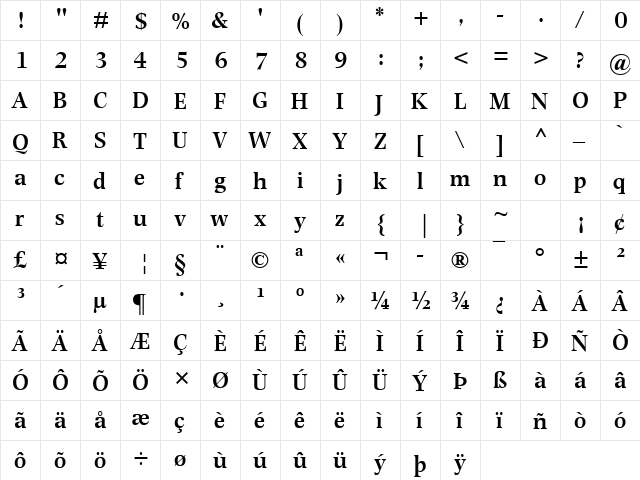
Photina MT Semi Bold Regular Font Preview
Photina MT Semi Bold Regular
Photina MT Semi Bold Regular Font Details
Design Context for Photina MT Semi Bold Typeface
Photina MT Semi Bold is a composed and adaptable typeface that performs quietly and consistently across a wide range of design contexts. The heavy weight commands attention and anchors typographic hierarchies.
Pro Tip: Use Photina MT Semi Bold in both headline and body roles to test its range before committing to a single application.